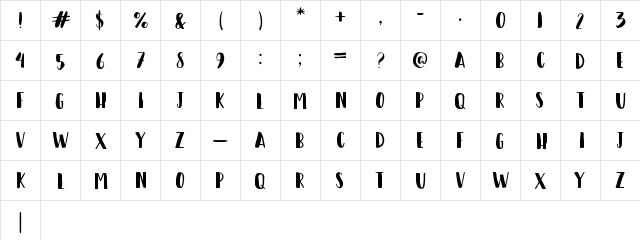
Happy Camper Regular
Happy Camper is a composed and adaptable typeface that performs quietly and consistently across a wide range of design contexts.